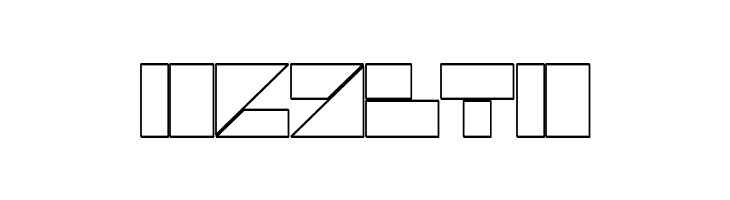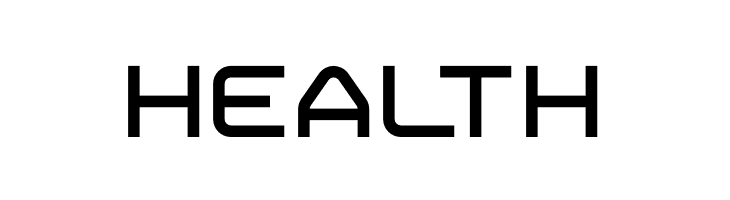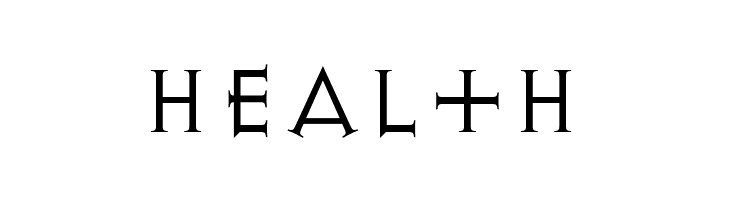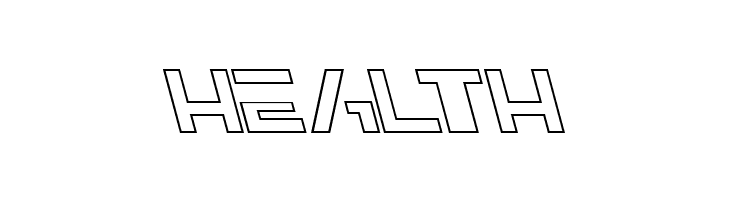
A futuristic, geometric font with consistent stroke width and unique dot elements.
A bold, abstract font with futuristic and geometric design elements.
A bold, geometric font with a futuristic and modern aesthetic.
A futuristic font with circular and linear elements creating a modern, innovative look.
A futuristic, geometric font with clean lines and a minimalist style.
A futuristic, dynamic font with sharp angles and sleek design.
An abstract, fragmented font with a modern, avant-garde style.
A textured serif font with a hand-drawn, modern twist.
A bold, three-dimensional font with a metallic sheen and futuristic design.
A futuristic, geometric font with rounded edges and a modern aesthetic.
A modern, italic, 14-segment LCD display-inspired font with a geometric and digital aesthetic.
A futuristic, geometric font with sharp angles and a mechanical feel.
A modern decorative font with geometric and abstract design elements.
A decorative, mechanical-inspired font with intricate gear and line patterns.
A modern, geometric font with a futuristic and precise design.
A bold, futuristic font with alien-like, abstract character designs.
A decorative and abstract font with geometric and futuristic elements.
A bold, futuristic font with sharp, angular lines and geometric shapes.
A decorative font with characters designed as mechanical structures.
A modern, abstract font with disconnected lines and curves.
A bold, glitch-inspired sans-serif font with a fragmented, digital aesthetic.
A bold, geometric font with a futuristic and modern design.